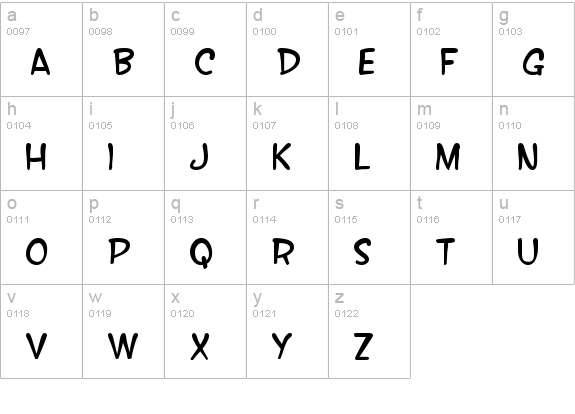
SF Wonder Comic Font Details
SF Wonder Comic font is a delightful and whimsical typeface that brings your designs to life with its playful and energetic appearance. Designed with the comic book aesthetic in mind, this font exudes a sense of fun and adventure, making it perfect for a wide range of creative projects. With its bold and expressive letterforms, SF Wonder Comic font captures the essence of classic superhero comics, while adding a modern twist. Each character is carefully crafted to embody a sense of action and excitement, making your text leap off the page. One of the best features of SF Wonder Comic font is that it is freely available to download at FontsMarket.com. This means that you can easily access and use this fantastic font for all your personal and commercial projects without any cost or restrictions. Whether you're designing a comic book, creating eye-catching headlines, or adding a touch of whimsy to your branding, SF Wonder Comic font is the perfect choice. Its versatility is another reason to love SF Wonder Comic font. It works equally well in both large and small sizes, ensuring that your text remains clear and legible in any context. The seamless blending of thick and thin strokes gives the font a dynamic and lively appearance, adding depth and dimension to your designs. SF Wonder Comic font is also designed with usability in mind. Each character is carefully spaced and kerned, ensuring a smooth and balanced flow of text. The font is available in multiple formats, making it compatible with a wide range of software and devices. So, whether you're a professional designer or a hobbyist, SF Wonder Comic font is a must-have in your font collection. Its free availability at FontsMarket.com makes it easily accessible to everyone, allowing you to bring a touch of comic book magic to your designs without breaking the bank. Download SF Wonder Comic font today and let your creativity soar!